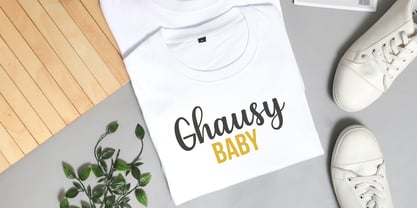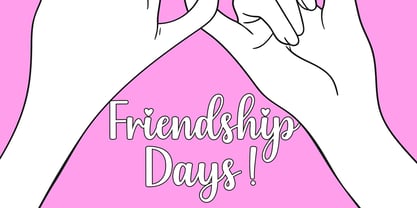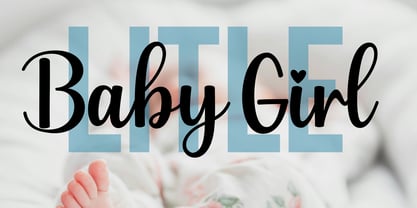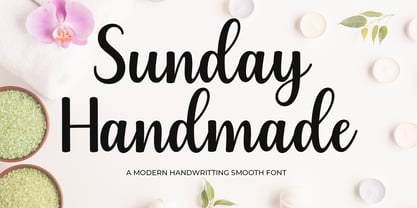
Sunday Handmade
by Natural Ink
The Sunday Handmade Font Family was designed by Arif Gunawan and published by Natural Ink. Sunday Handmade contains 1 styles. More about this family
ntroducing Sunday Handmade Script—a contemporary calligraphy masterpiece that boasts a definitive Regular variant. It’s a casually graceful font adorned with elegant swashes, making it a versatile option for a wide range of creative tasks. Whether you’re creating captivating logos, designing product packaging, crafting heartfelt wedding invitations, shaping unique branding identities, composing catchy headlines, crafting standout signage and labels, concocting eye-catching book covers, constructing compelling posters or simply quoting your favourite words, Sunday Handmade Script is the font that breathes life into your designs and conveys your messages with unmatched charm and style.
Designers: Arif Gunawan
Foundry: Natural Ink